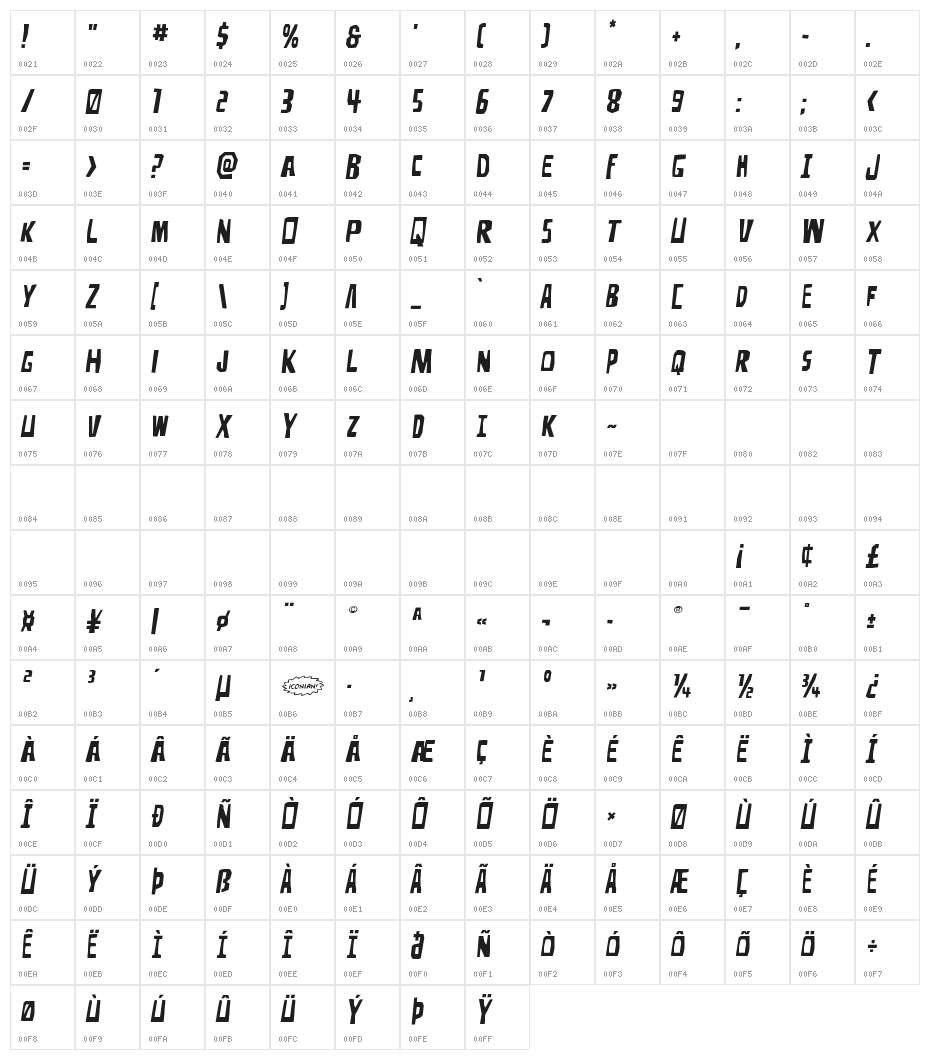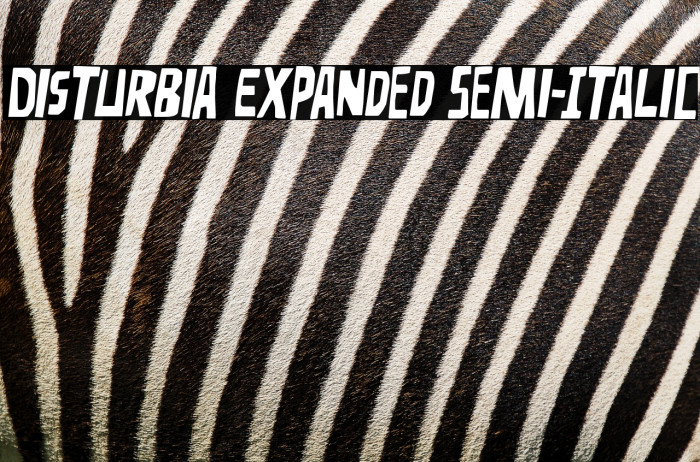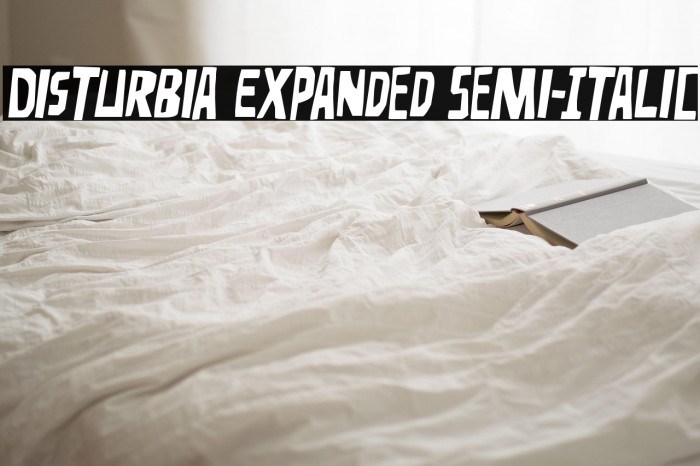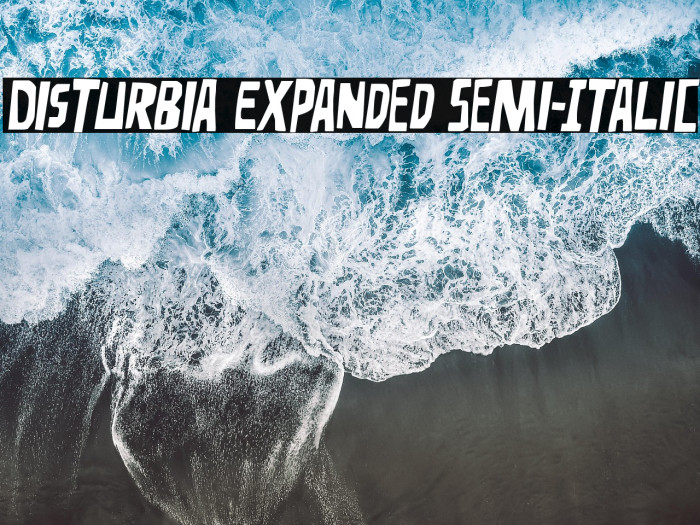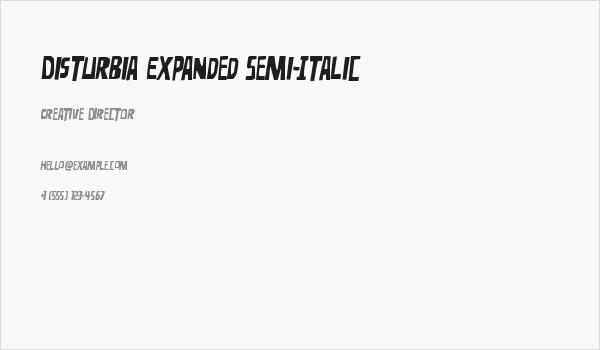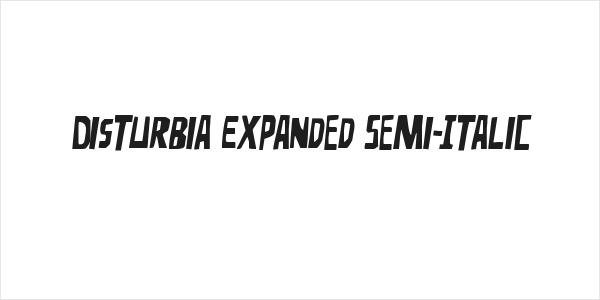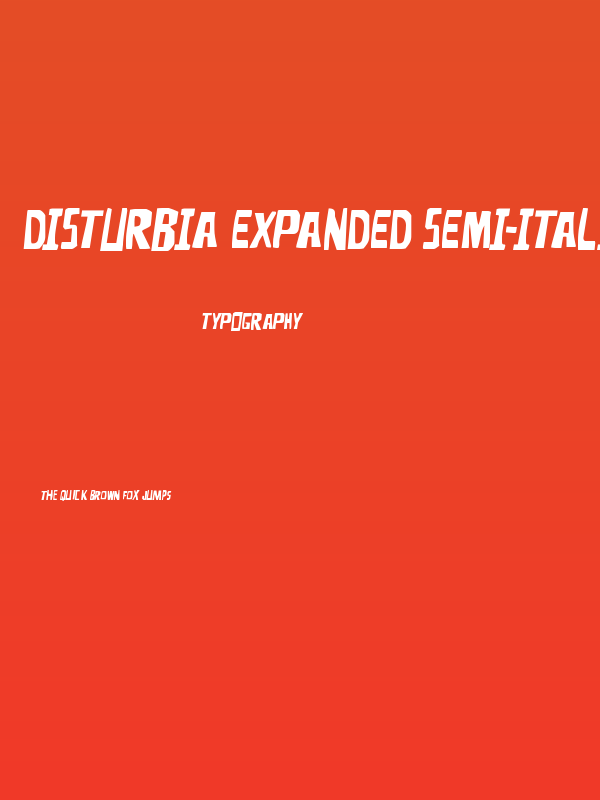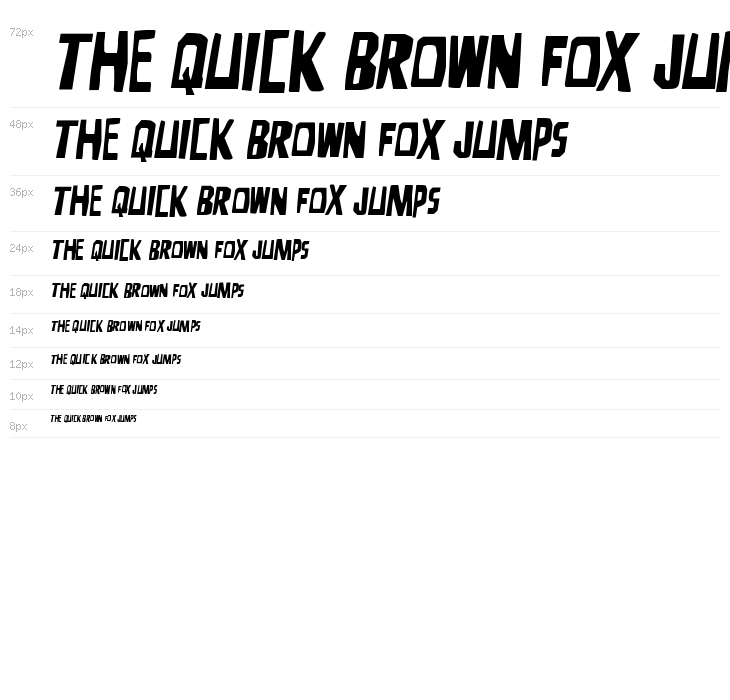
Disturbia Expanded Semi-Italic Font
Disturbia Expanded Semi-Italic Description
This font features a bold and dynamic design with a slightly italicized slant, giving it a sense of movement and energy. The characters are expanded, providing a wide and open appearance that enhances readability while maintaining a unique style. The angular and geometric shapes of the letters create a modern and edgy look, suitable for attention-grabbing headlines or creative projects. The numbers and special characters are consistent with the overall design, ensuring a cohesive appearance across all text elements.